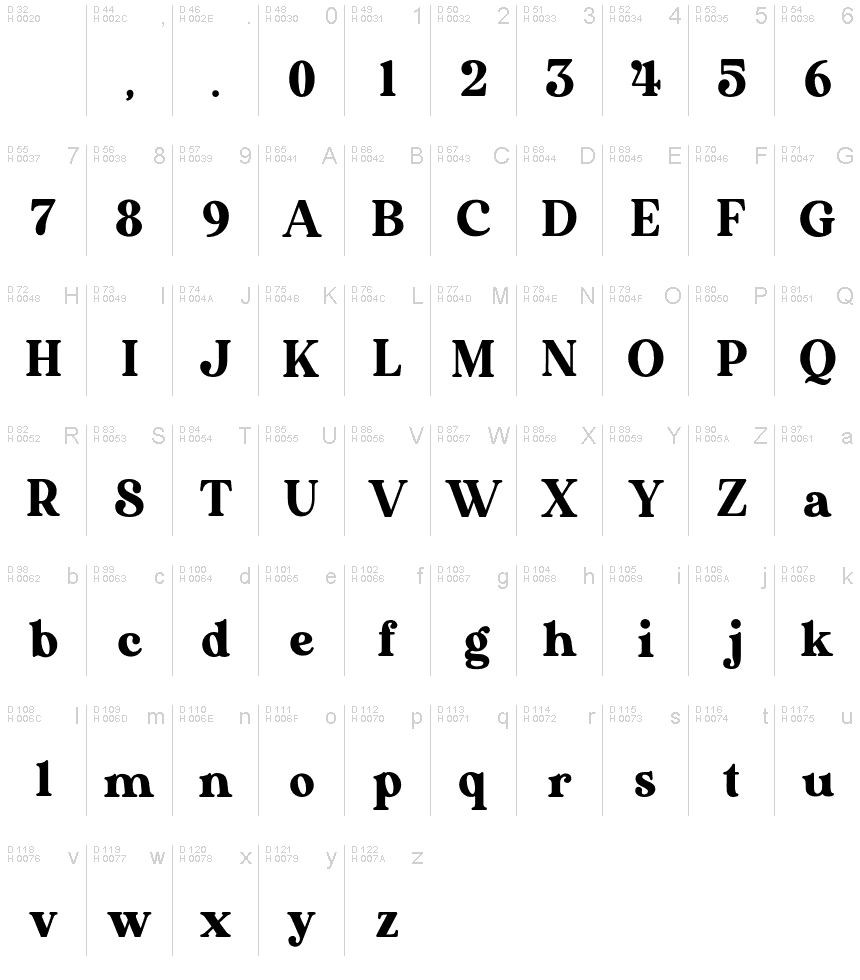
Bavistage
Introducing Bavistage, a bold vintage serif font from designer Aluyeah Studio. Perfect for creating striking logos and posters, Bavistage is also ideal for restaurant menus and signage with its classic yet modern look.
Hallo Aluyeaholic! Introducing Bavistage, a broken smile typeface. Inspired by the vintage vibe of a girl's broken smile. It gives you past memories, disappointments and happiness at the same time.